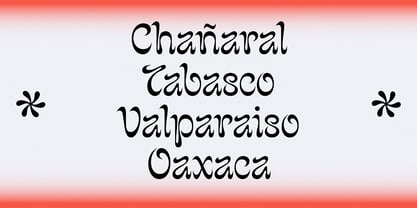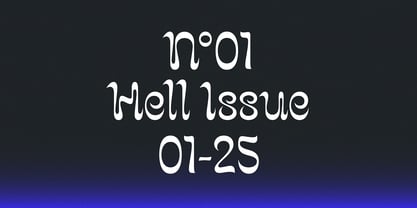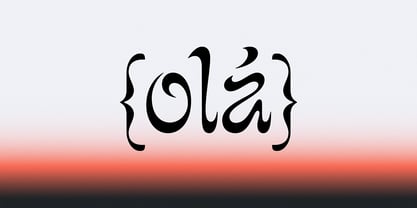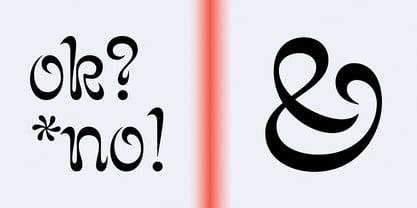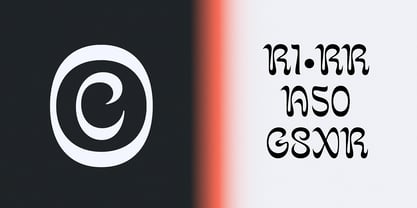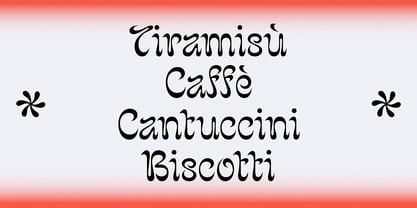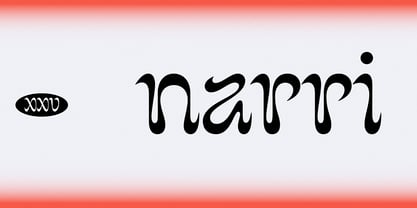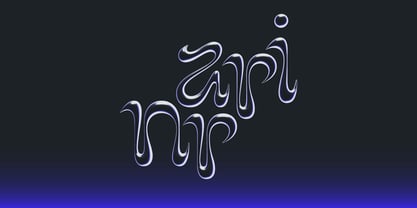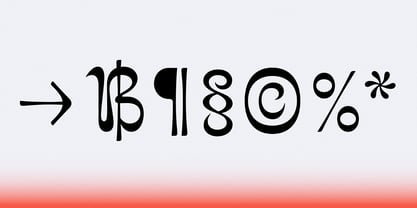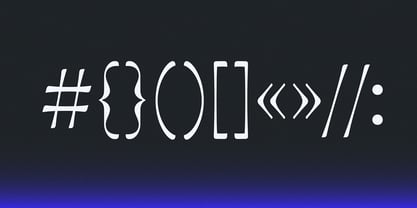
Narri
by Blaze Type
The Narri Font Family was designed by Elsa Drevous and published by Blaze Type. Narri contains 1 styles. More about this family
Narri is a playful display typeface designed by Elsa Drevous. The system is created with curvy lines, strong inverted contrast and sharp endings, resulting of organic calligraphic shapes. Not following the classic rules of calligraphy and mixing influences, the rendering is non-conformist and unique. The design is inspired by the dancing shapes of flames. The ornamental form of this typeface also allows glyphs to be used as decorative letters, or simply as distinctive shapes. The strong identity of the design make it a perfect font to create lively distinctive branding projects.
Designers: Elsa Drevous
Current Foundry: Blaze Type